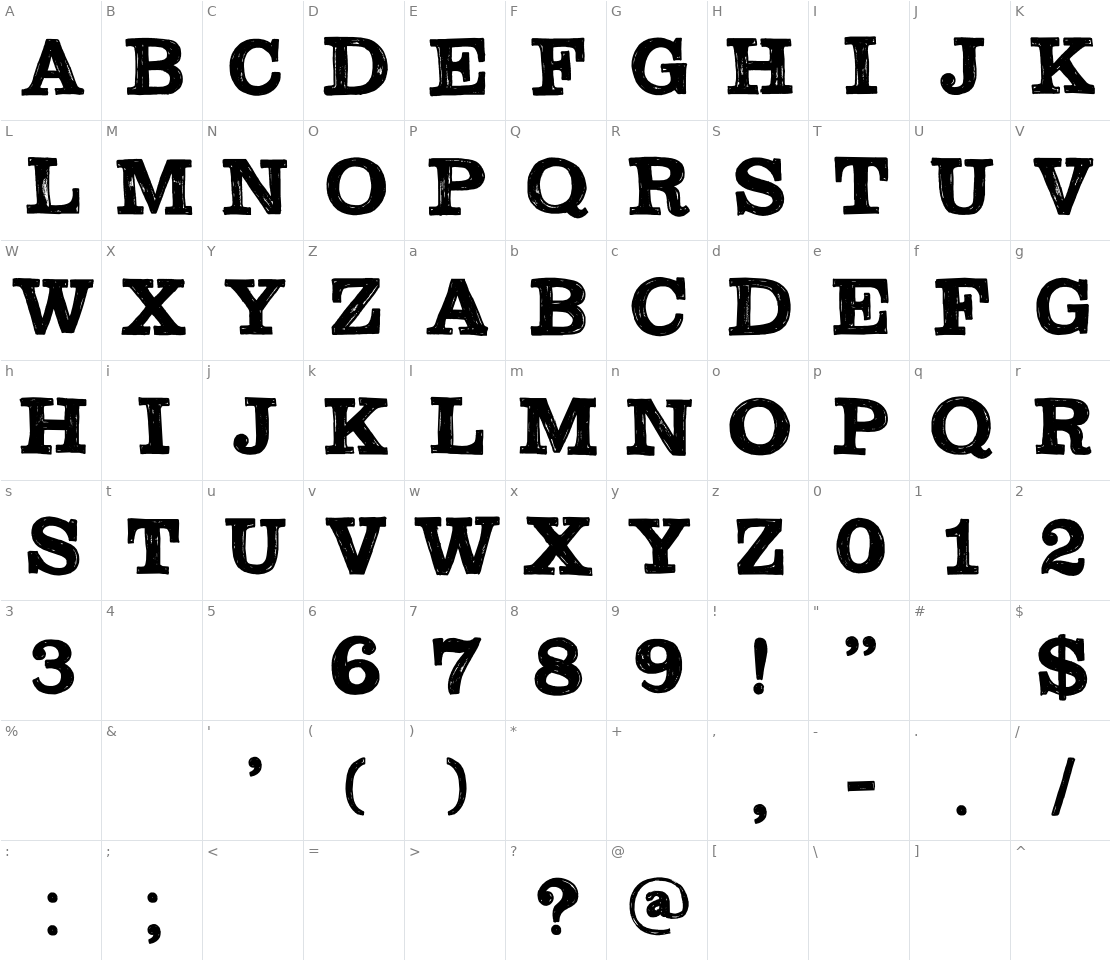
DK Southwark
DK Southwark is a heavy slab serif from Hanoded with a worn, roughened surface that gives it the look of old wood type that's been through decades of use. The bold letterforms and distressed texture lean into vintage and western territory, with enough grit to feel authentic rather than artificially aged. Best for headlines, posters, and branding where you want something that carries real weight and history in its imperfections.